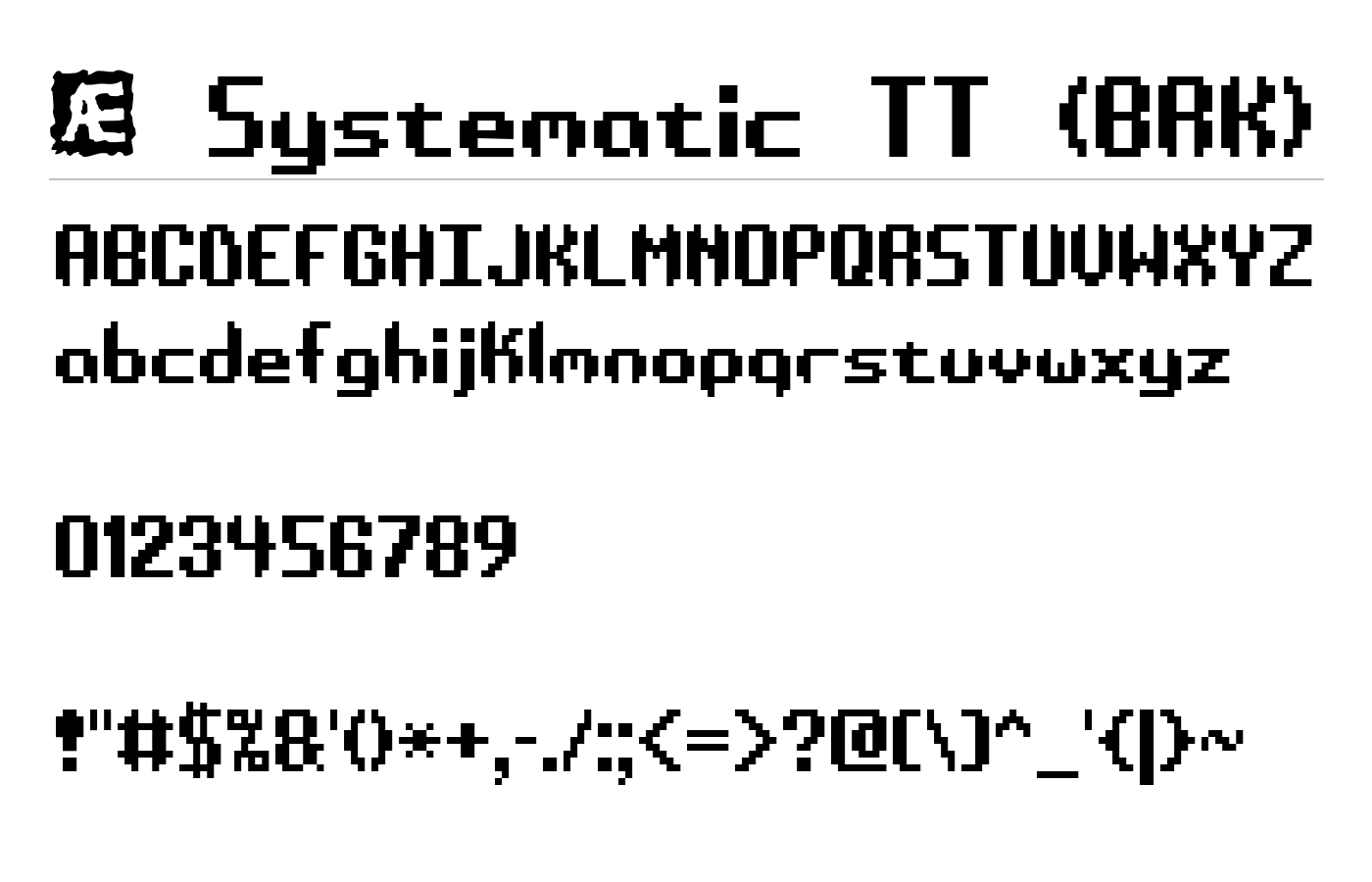
Æ Systematic TT (BRK) is a pixelated, monospaced sans serif font with a retro digital aesthetic reminiscent of early computer or arcade game typography. Its blocky, geometric shapes and uniform stroke weight create a technical, systematic vibe that suits tech, gaming, or coding contexts, especially for headlines or logos where a vintage digital feel is desired. This font stands out for its clarity at small sizes and strong character recognition, making it ideal for digital displays and pixel art projects.
Æ Systematic TT (BRK) Font
About Æ Systematic TT (BRK) Font